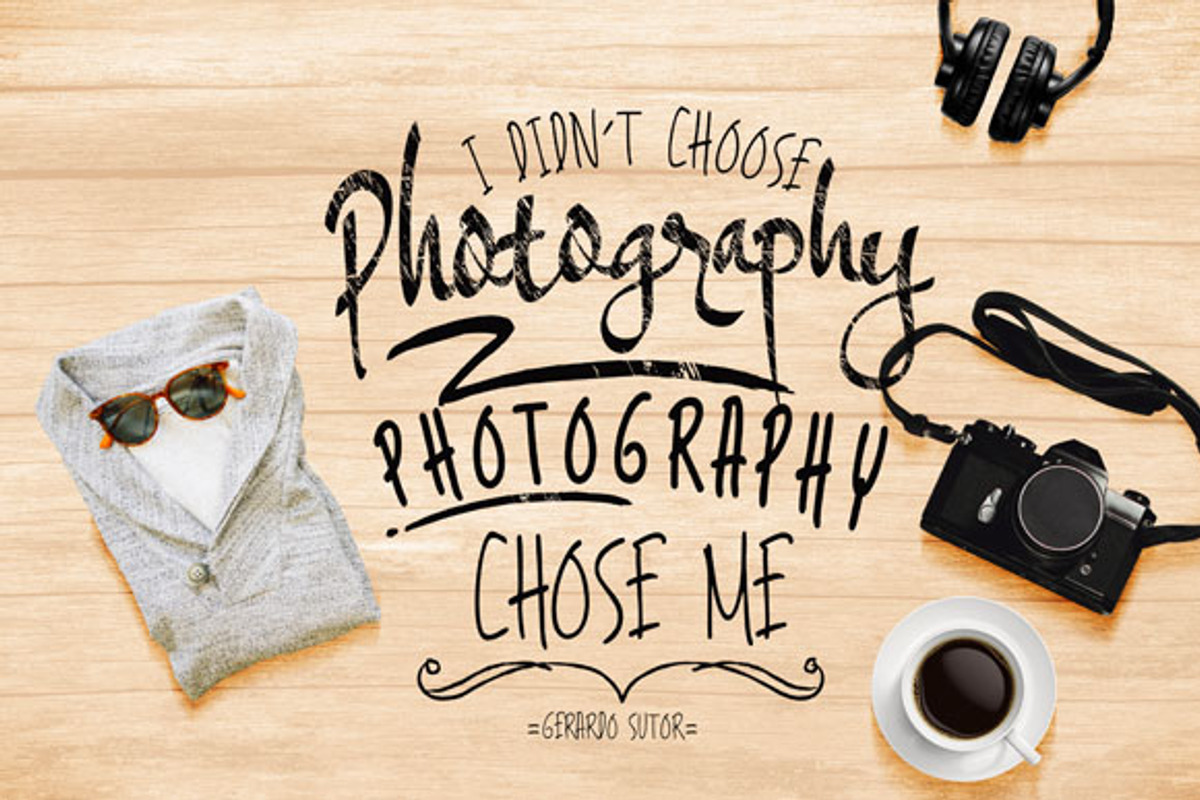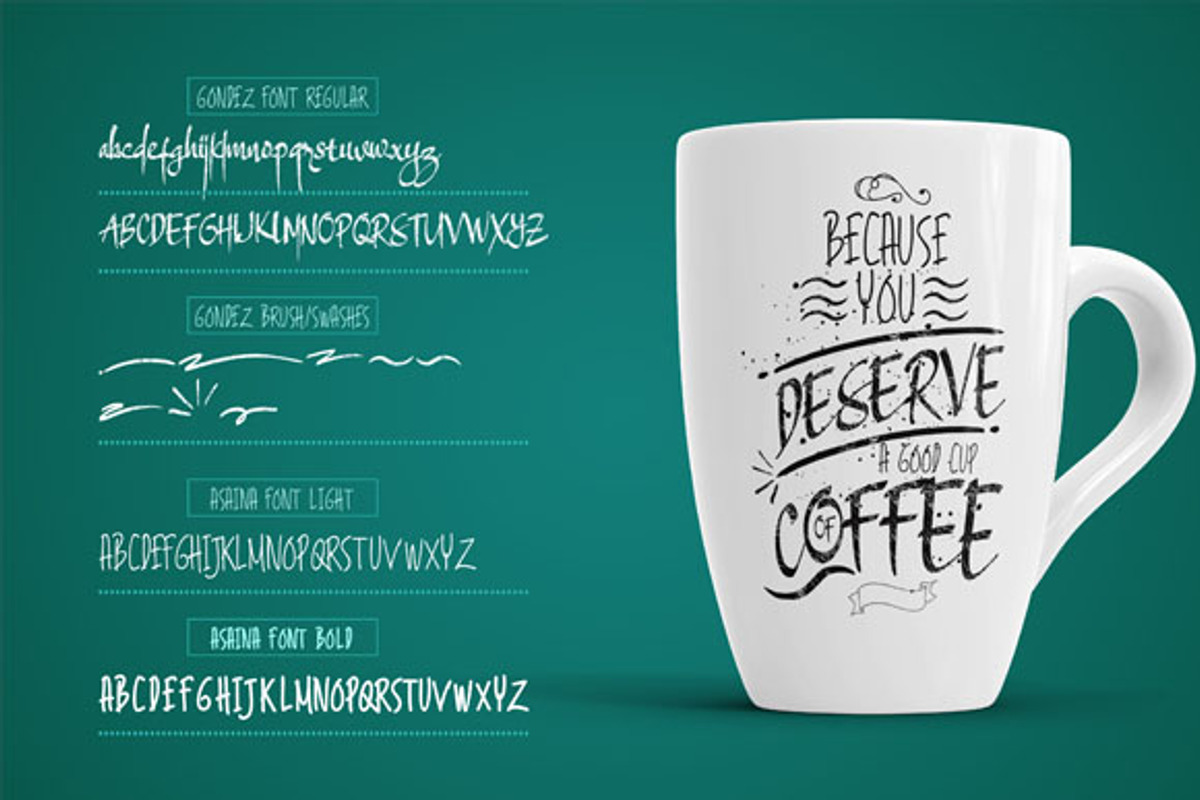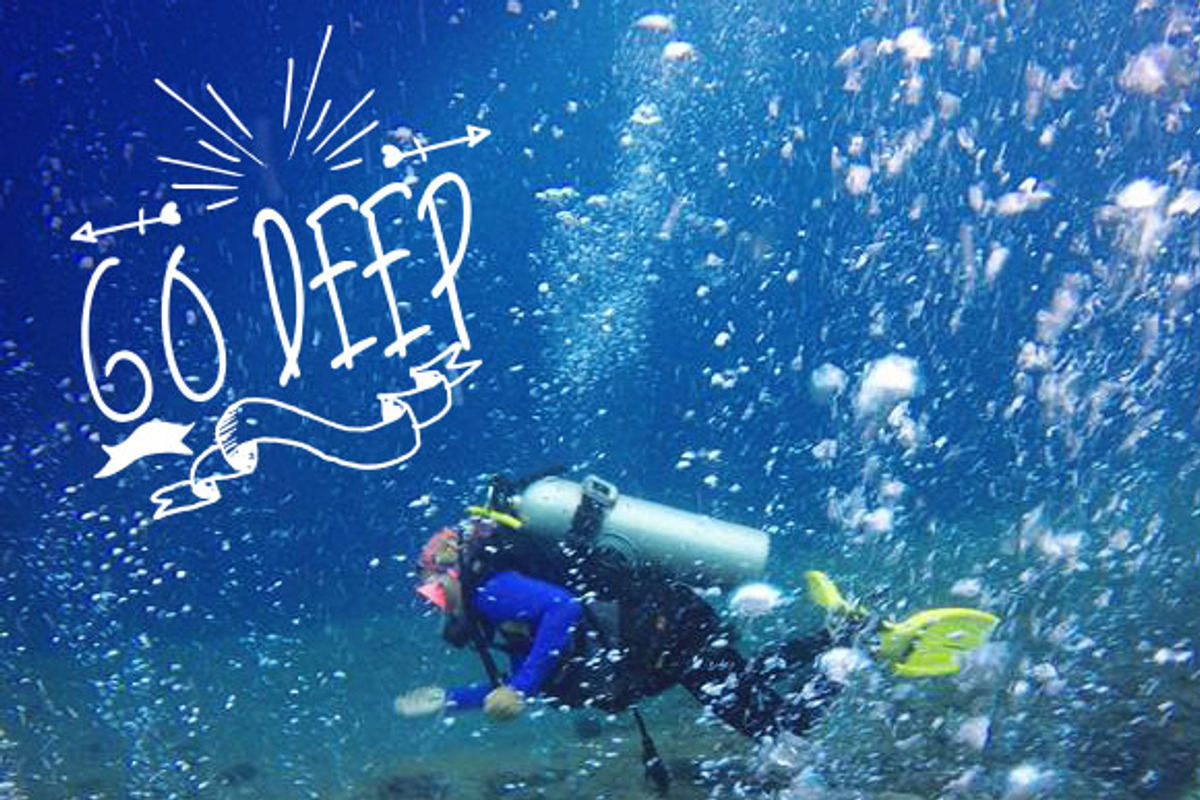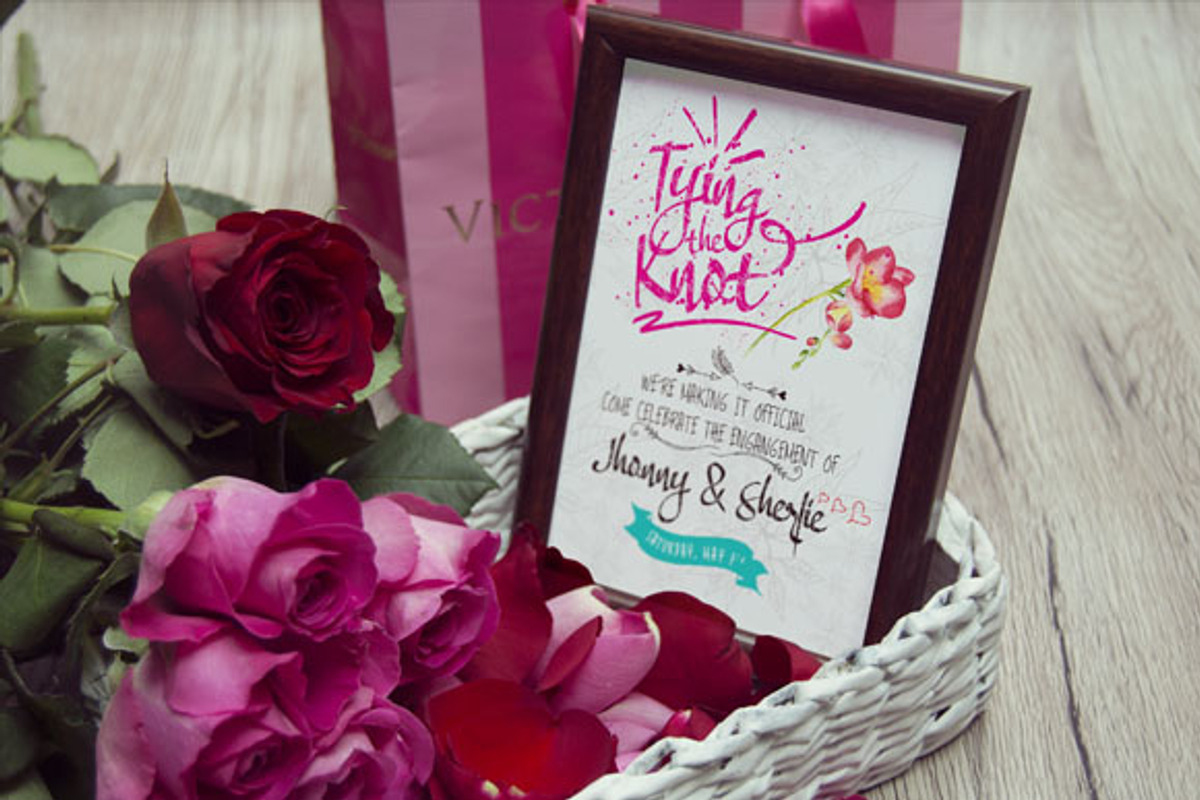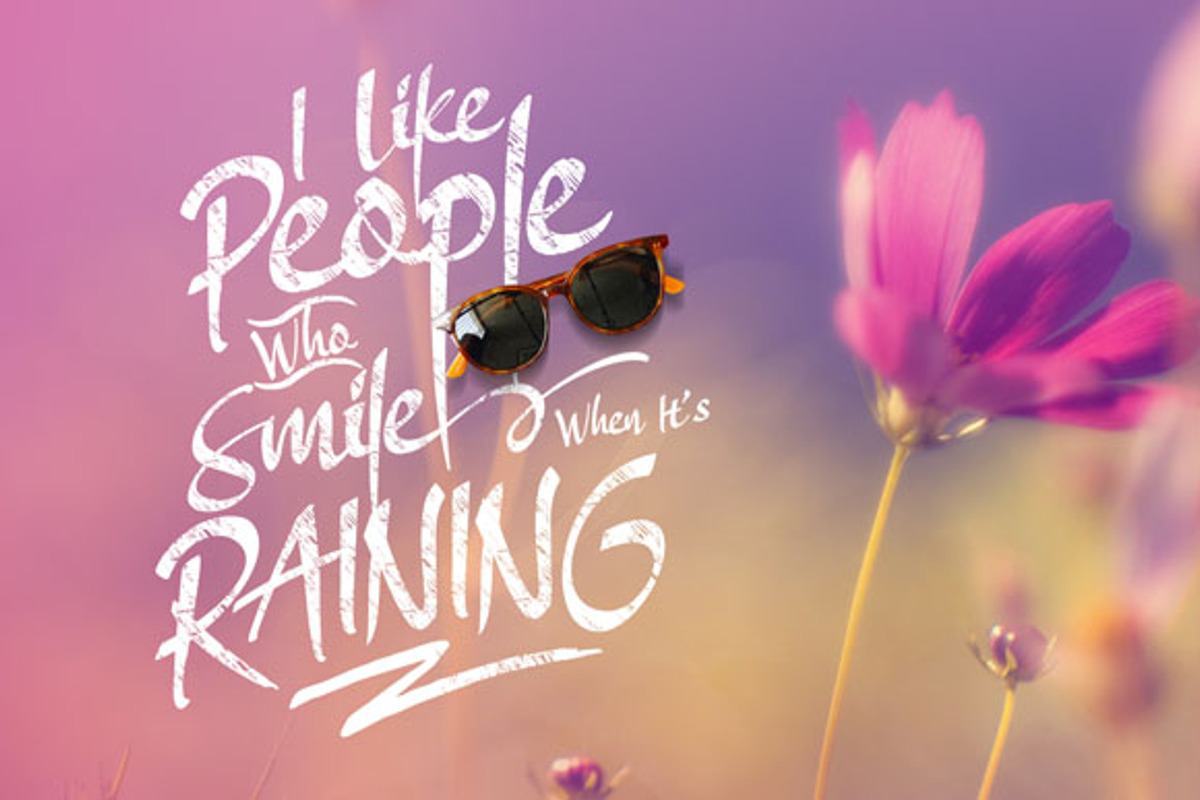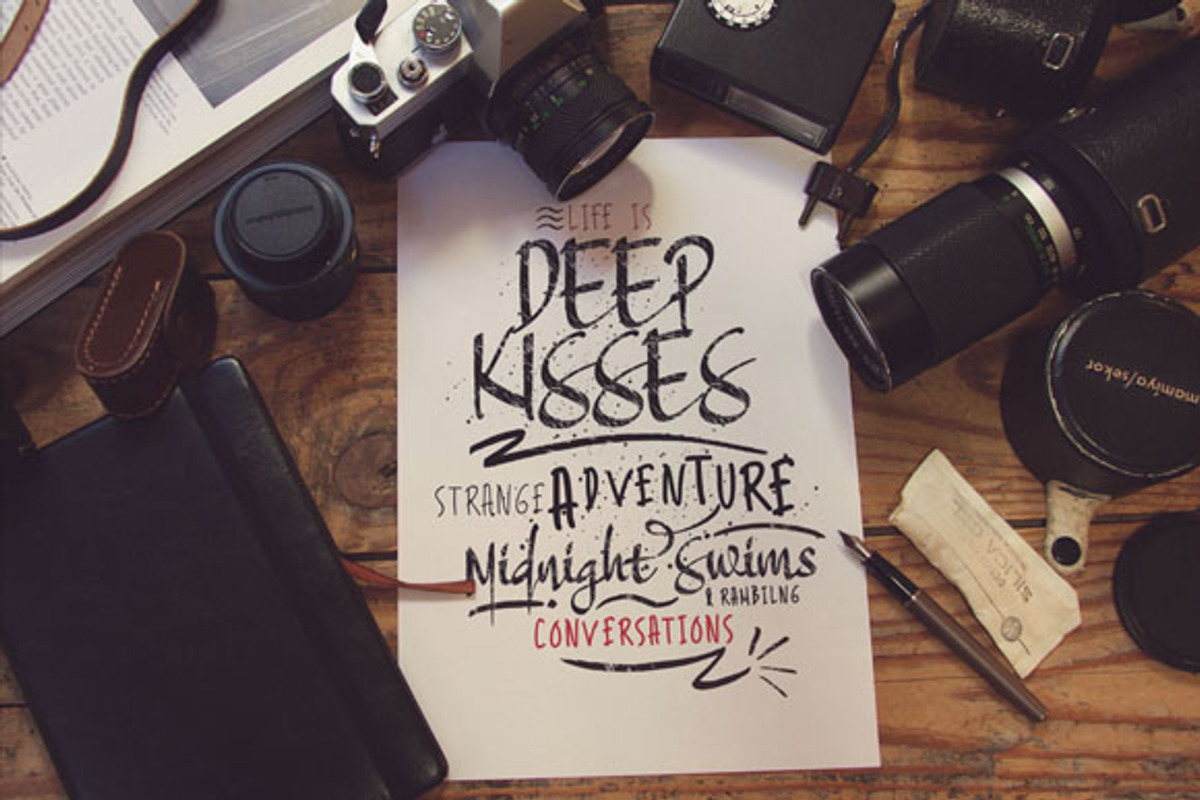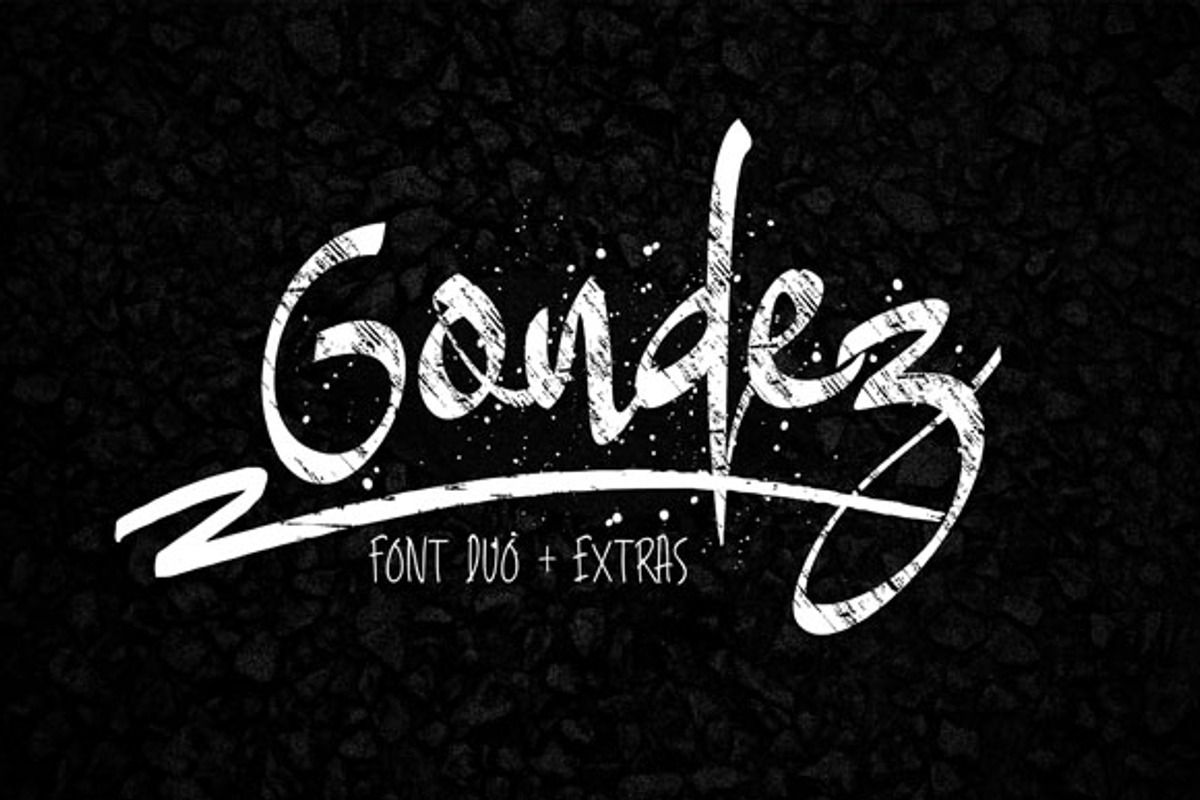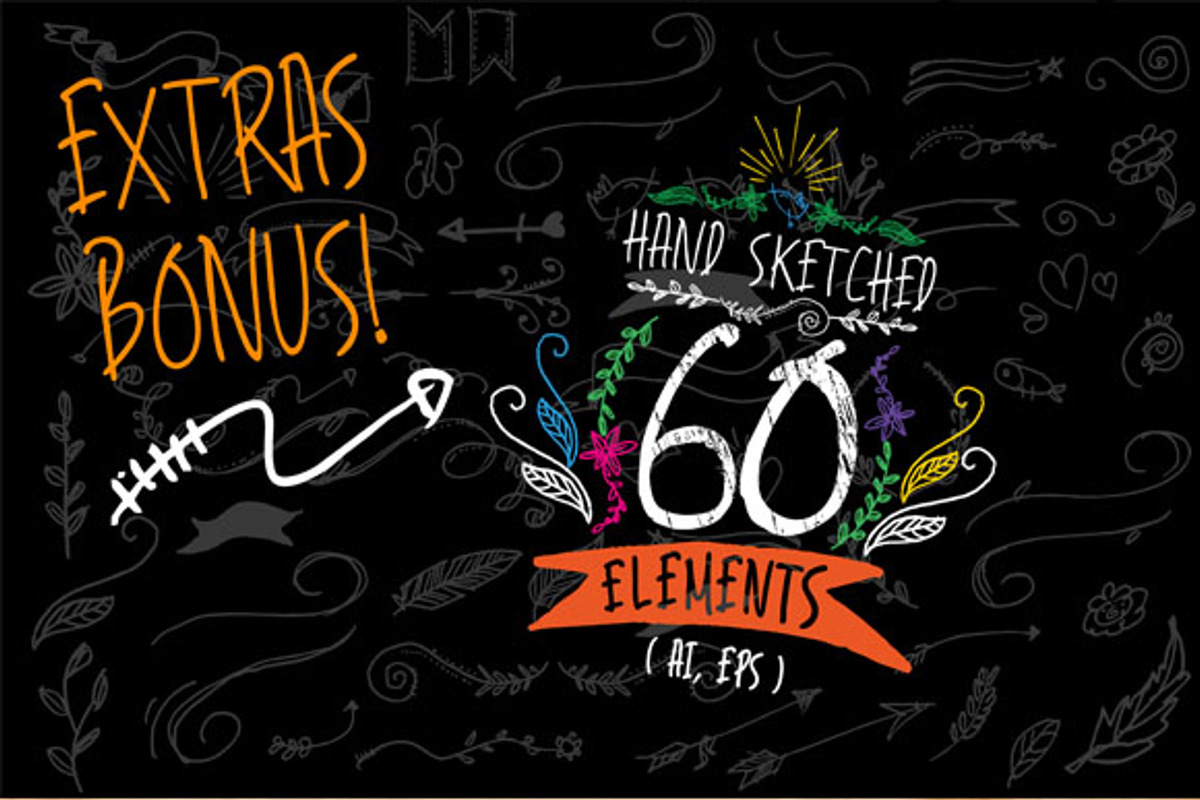
Gondez Font Duo + Ekstra
Gondez Font Duo + Ekstra by Mildstudio is a font selected for branding, posters, packaging, typography.
- Included in the pack is additional marker swashes in font form for you and 60 hand sketched elemets vector.
- Gondez Font Regular - a casual, arty Hand Script consisting of upper and lowercase letters, punctuation and numerals.Stylistic alternates fo
Why Gondez Font Duo + Ekstra is worth a look
Gondez Font Duo + Ekstra by Mildstudio fits naturally into Branding, posters, packaging, typography.